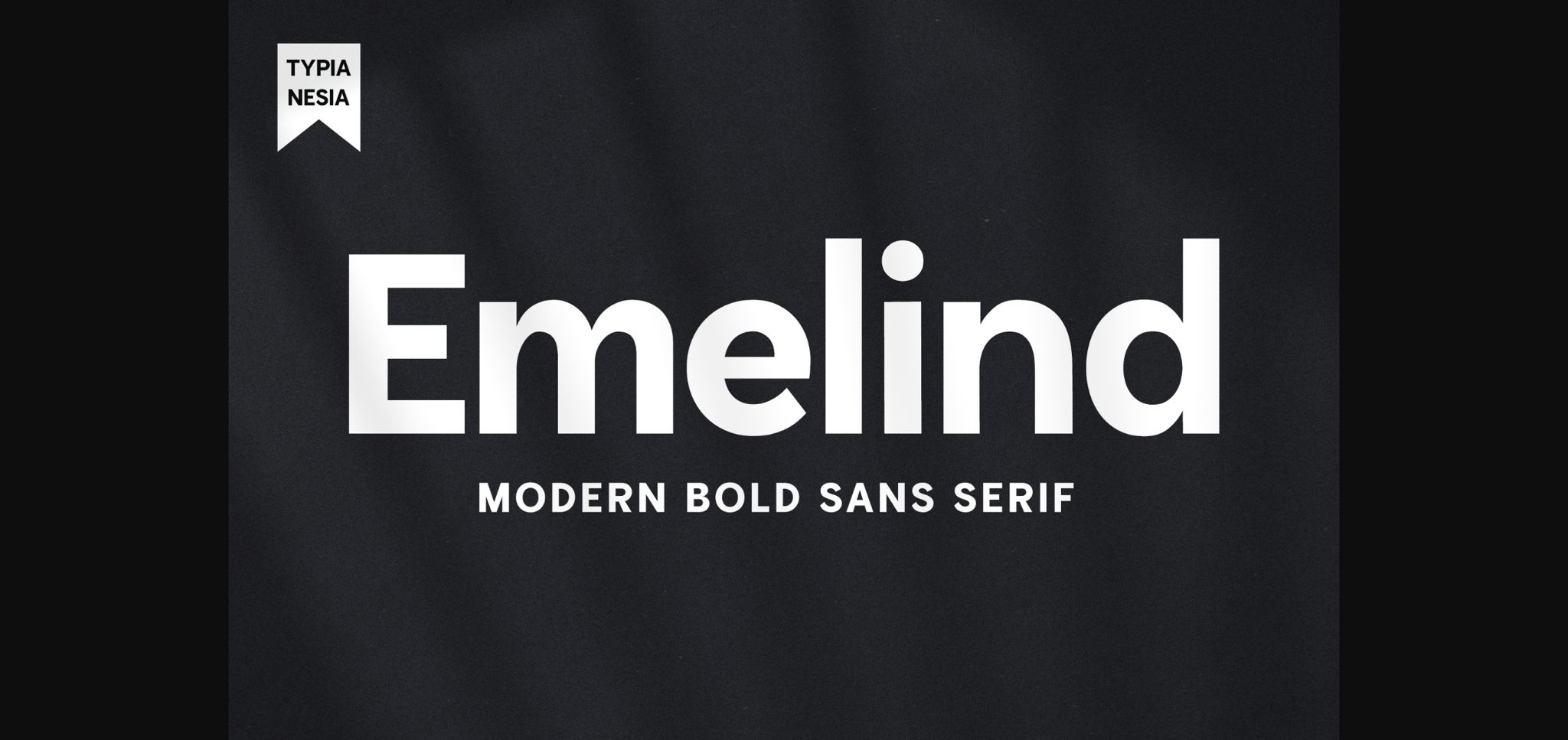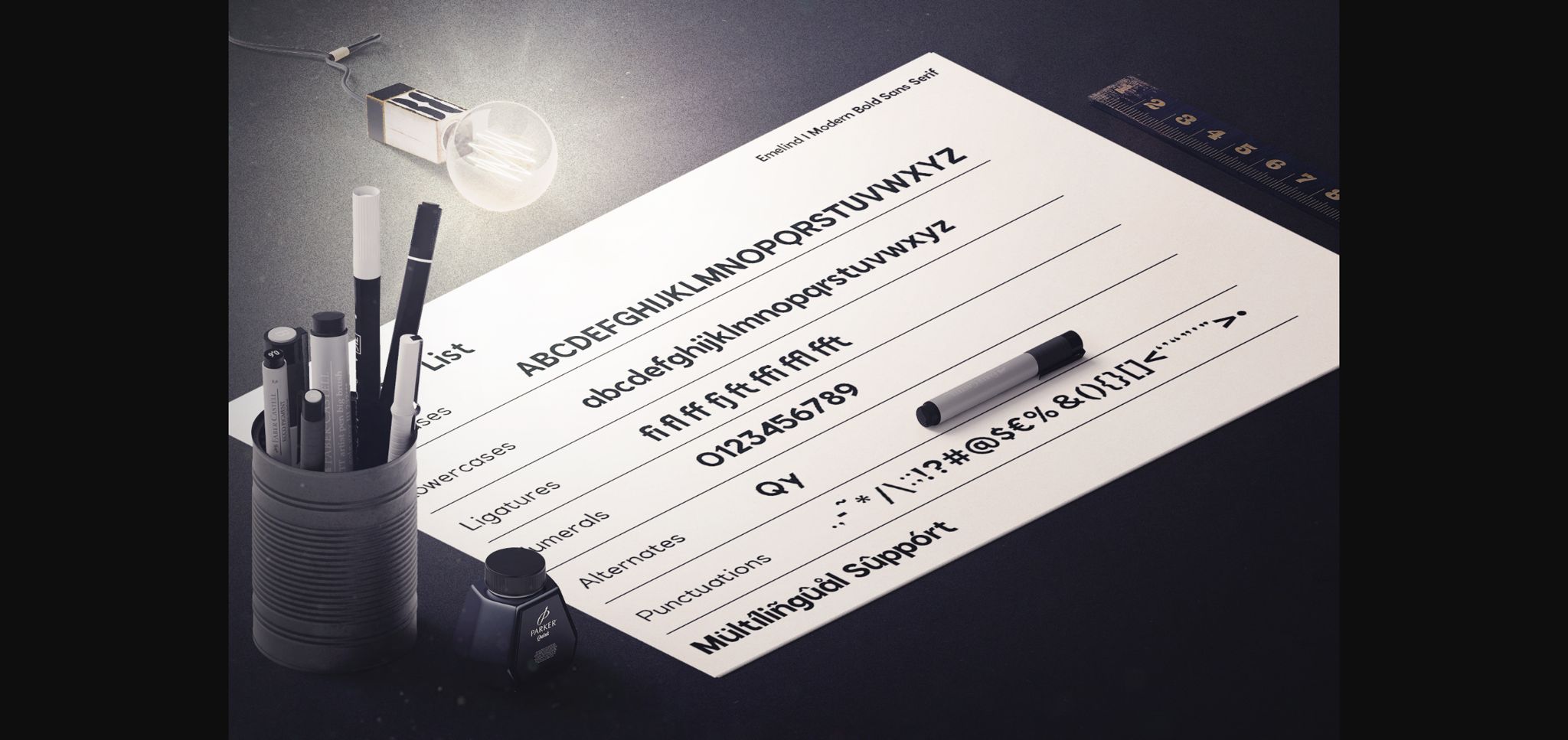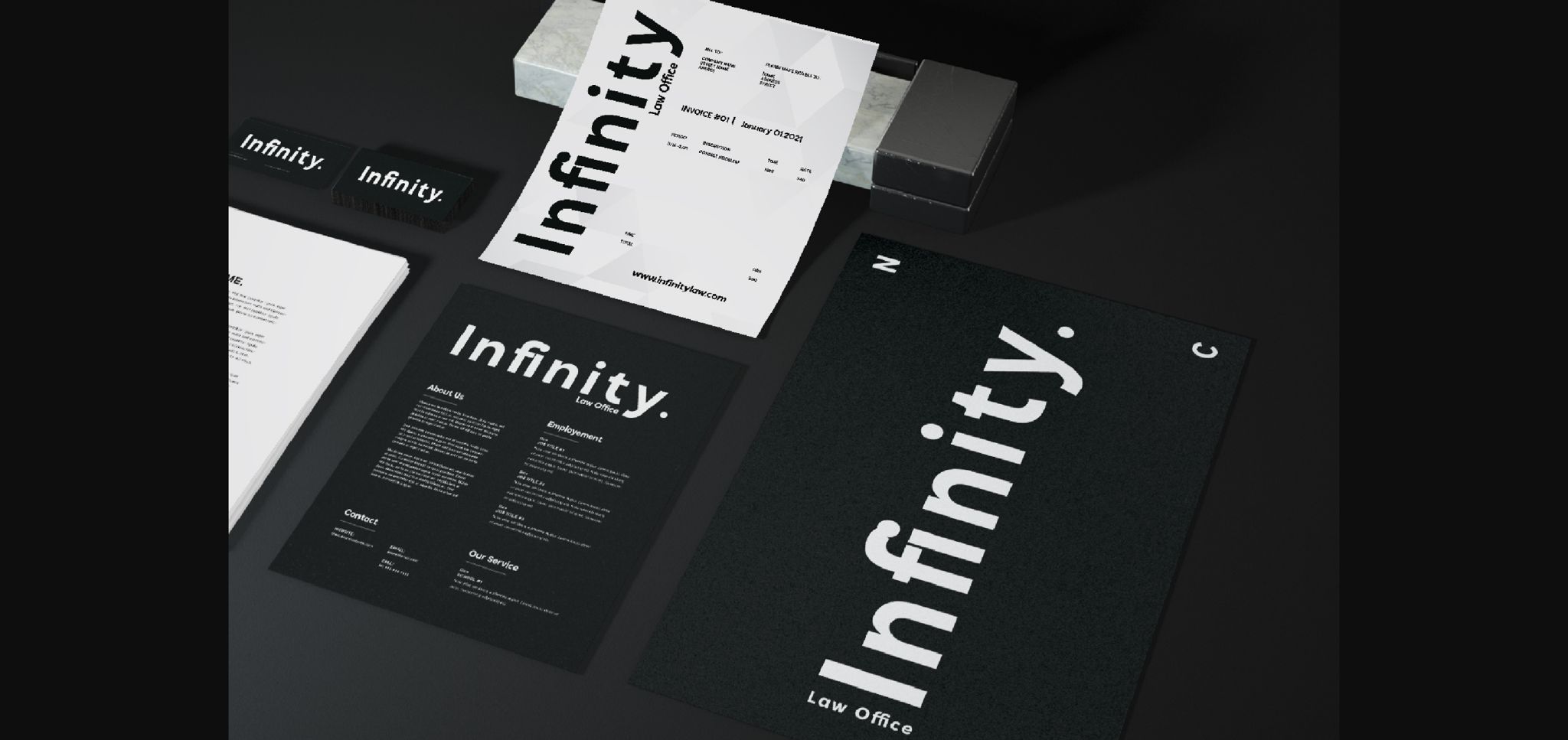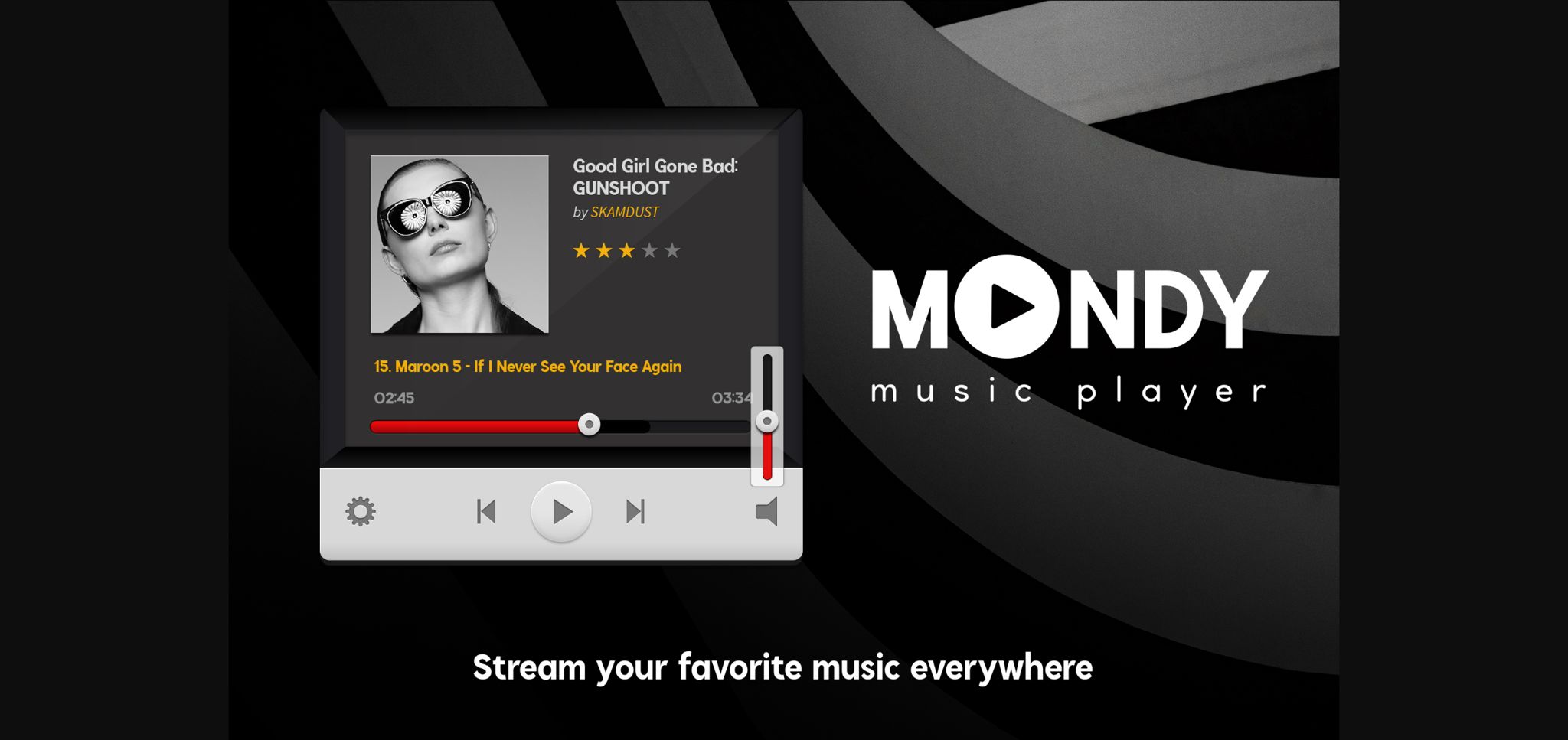
About Emelind Font
Emelind is a bold and neat sans serif font. It can easily be matched to an incredibly large set of projects, so add it to your creative ideas and notice how it makes them stand out!